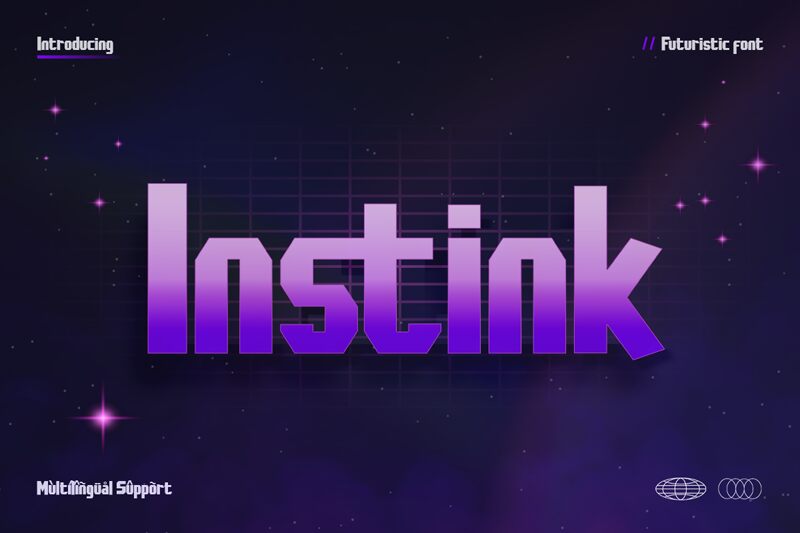
Instink
Dive into the digital age with Instink, a font that encapsulates the essence of technology and high-speed connectivity. Crafted by the innovative minds at Kong Font, this display typeface boasts a bold, condensed profile that commands attention. Instink's techno-futuristic style makes it an ideal match for projects that aim to stand out with a modern edge.
Every character in the Instink font family is meticulously designed to be distinct and legible, whether viewed from afar or up close, ensuring your message is never lost in translation. Its large square block-like letters exude a mechanical robustness, perfect for e-sports branding and any creative venture looking to make a statement.
Whether you're designing an electrifying logo or seeking to give your advertising materials an avant-garde twist, Instink is your go-to typography tool—a font not just built for today's visual landscape but engineered for tomorrow's innovations.